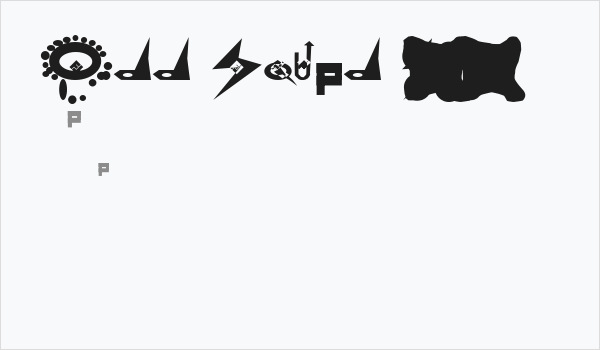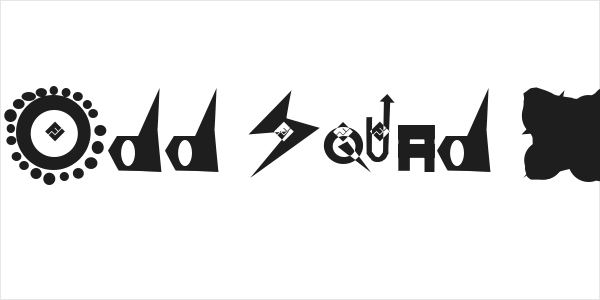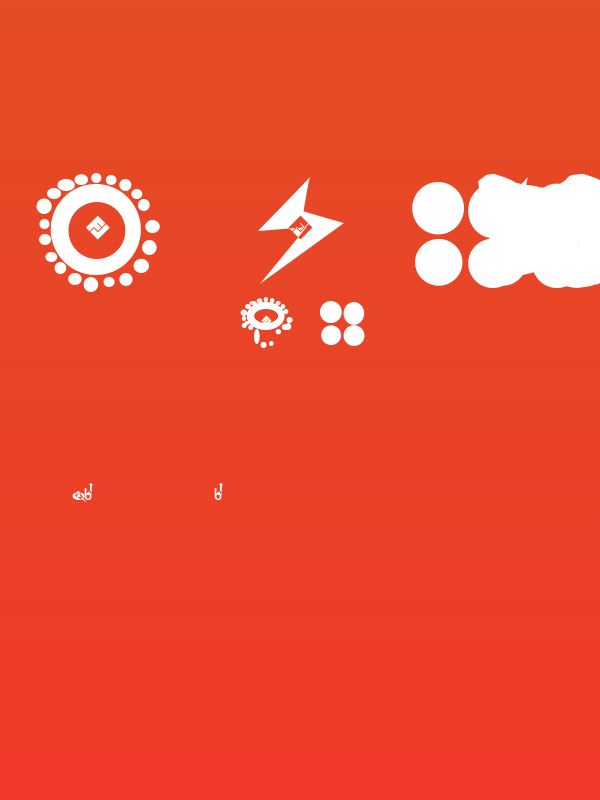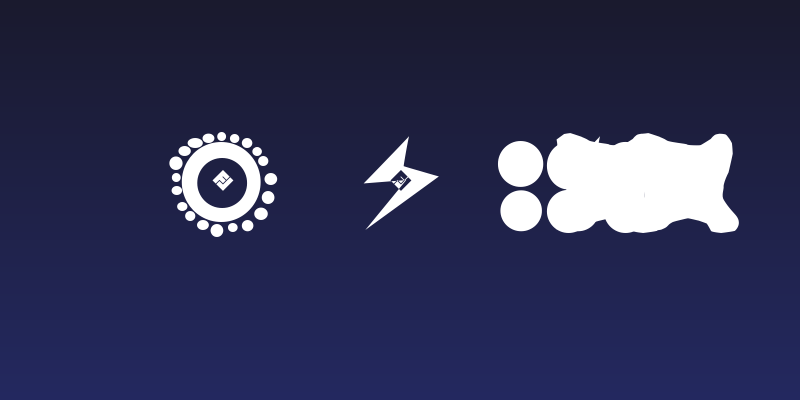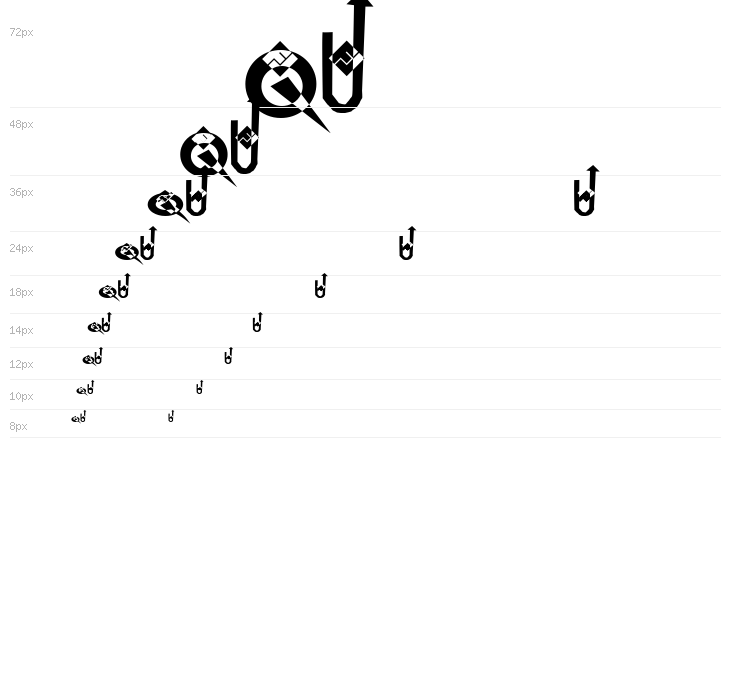
Odd Squad BASB Font
Odd Squad BASB Description
Highly abstract and decorative letterforms with geometric shapes and bold, blocky construction. Characters are stylized and not easily legible, featuring unconventional forms and heavy use of solid black areas.
| Overall Style | Decorative, Abstract, Modern |
| Use Case | Logos, Posters, Artistic projects |
| Proposed Projects | Experimental posters, album covers, avant-garde branding, art installations. |